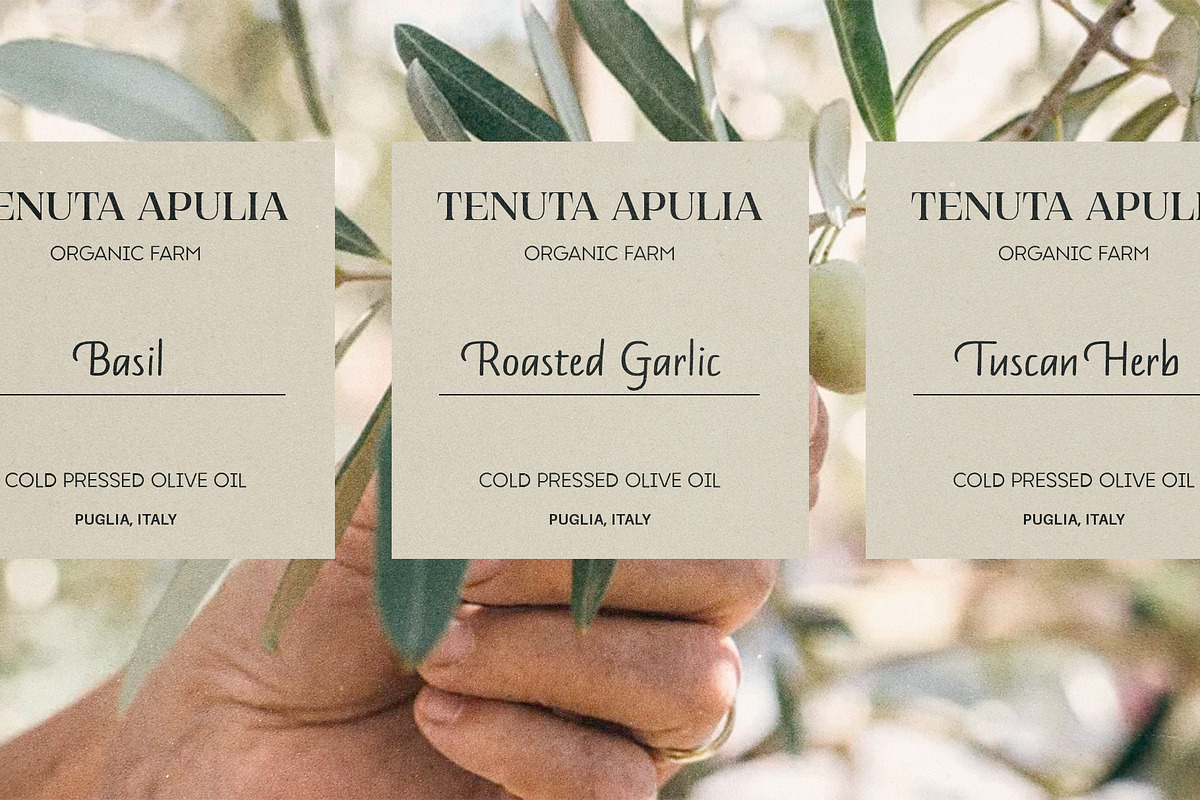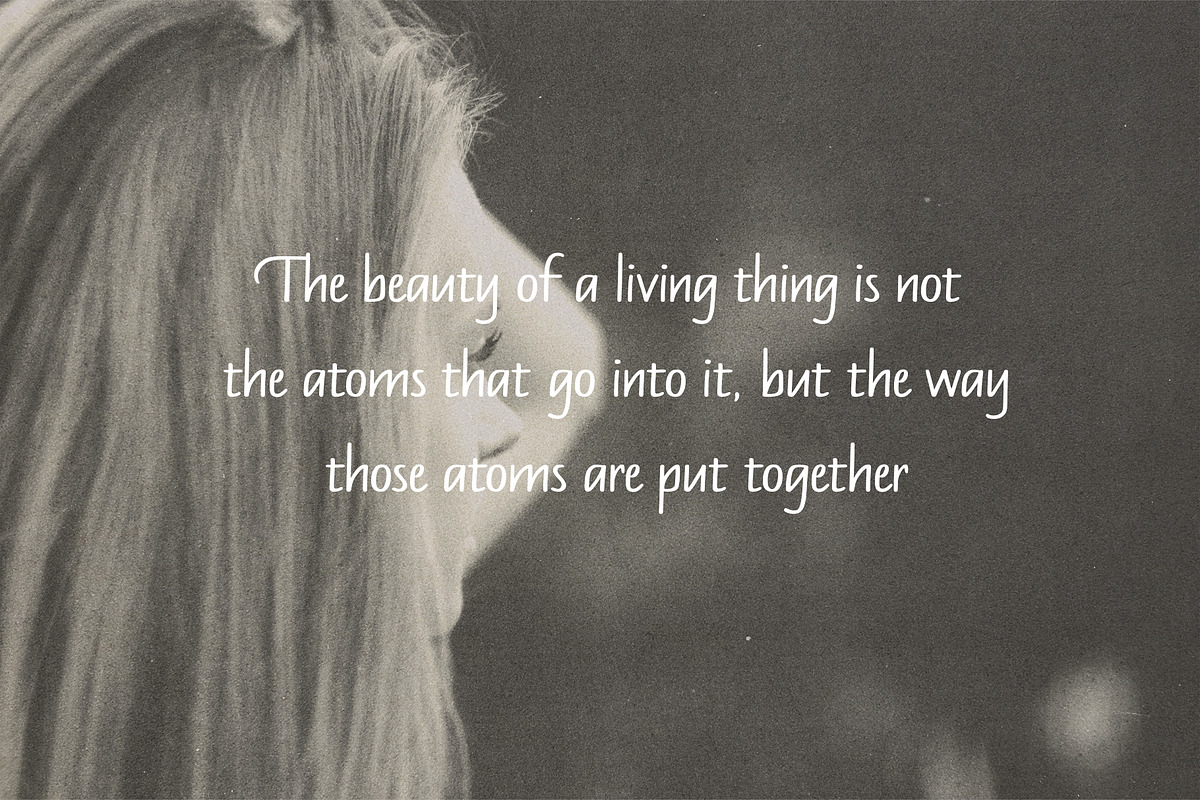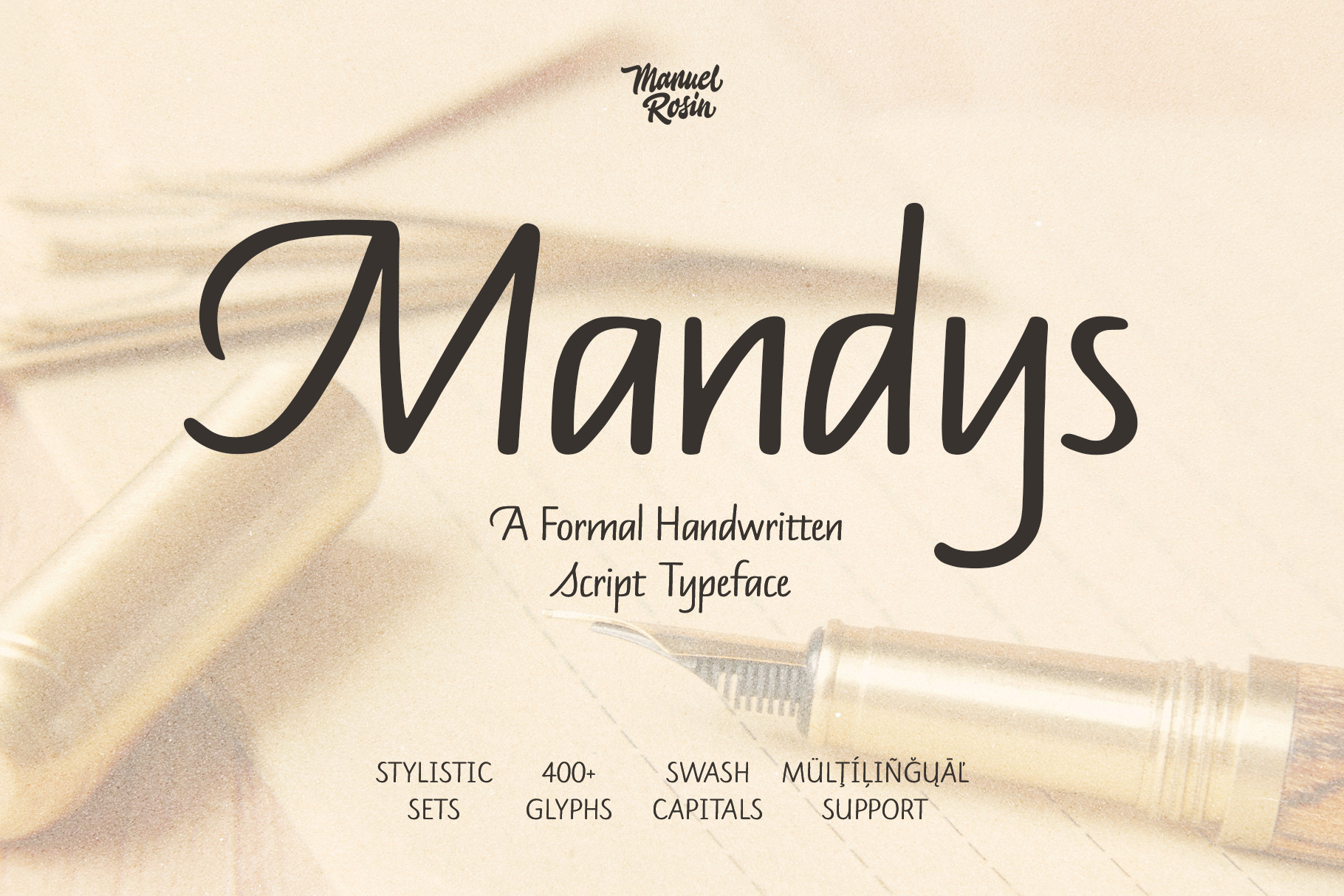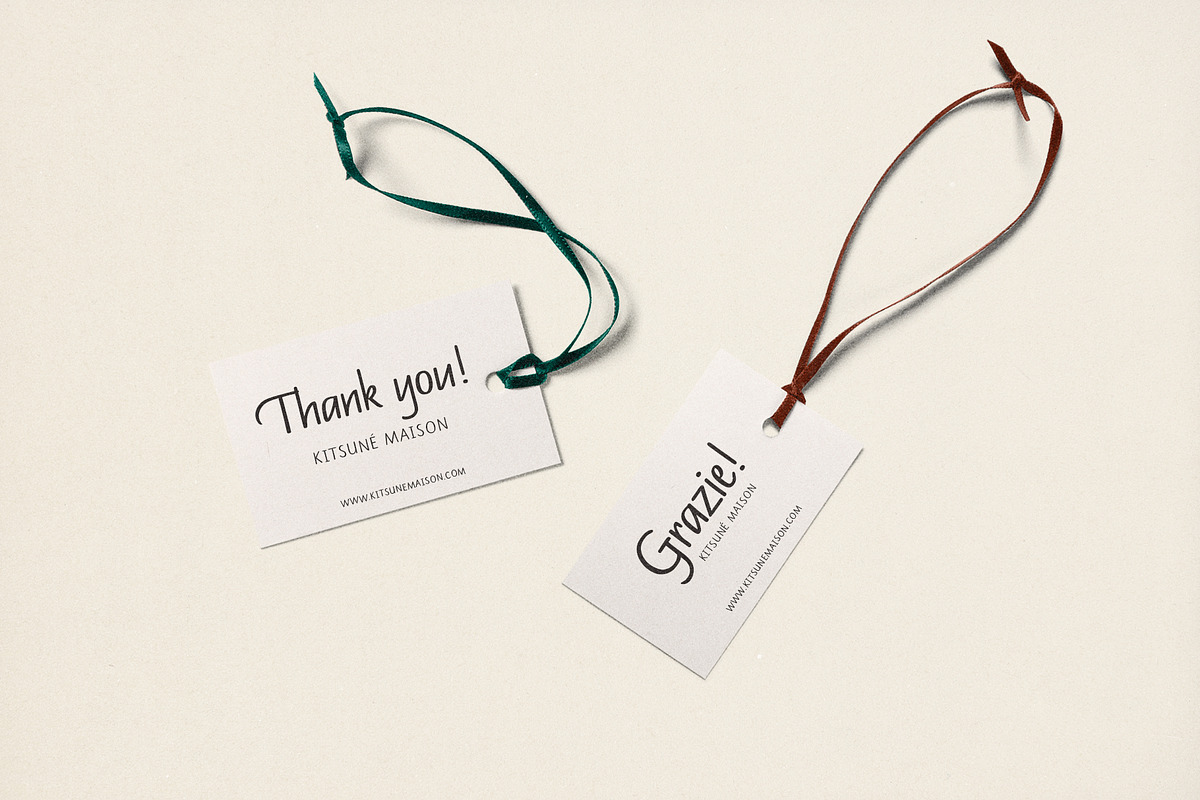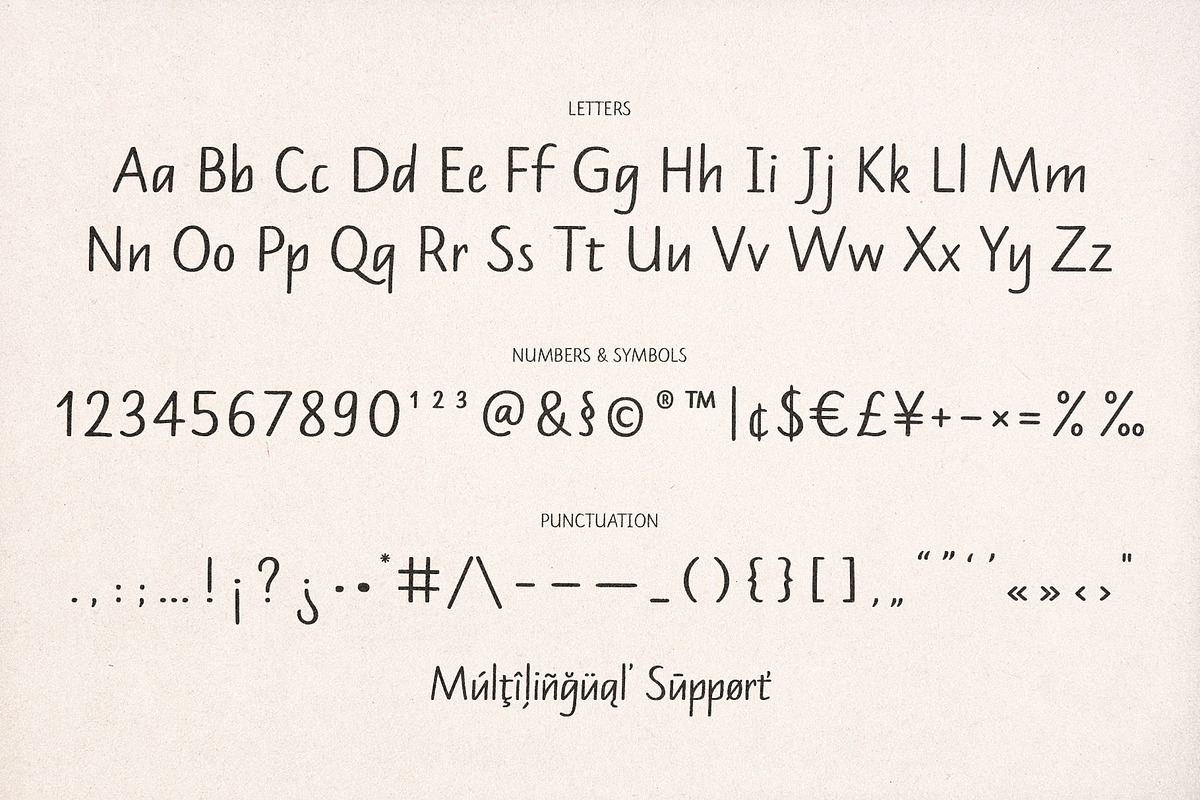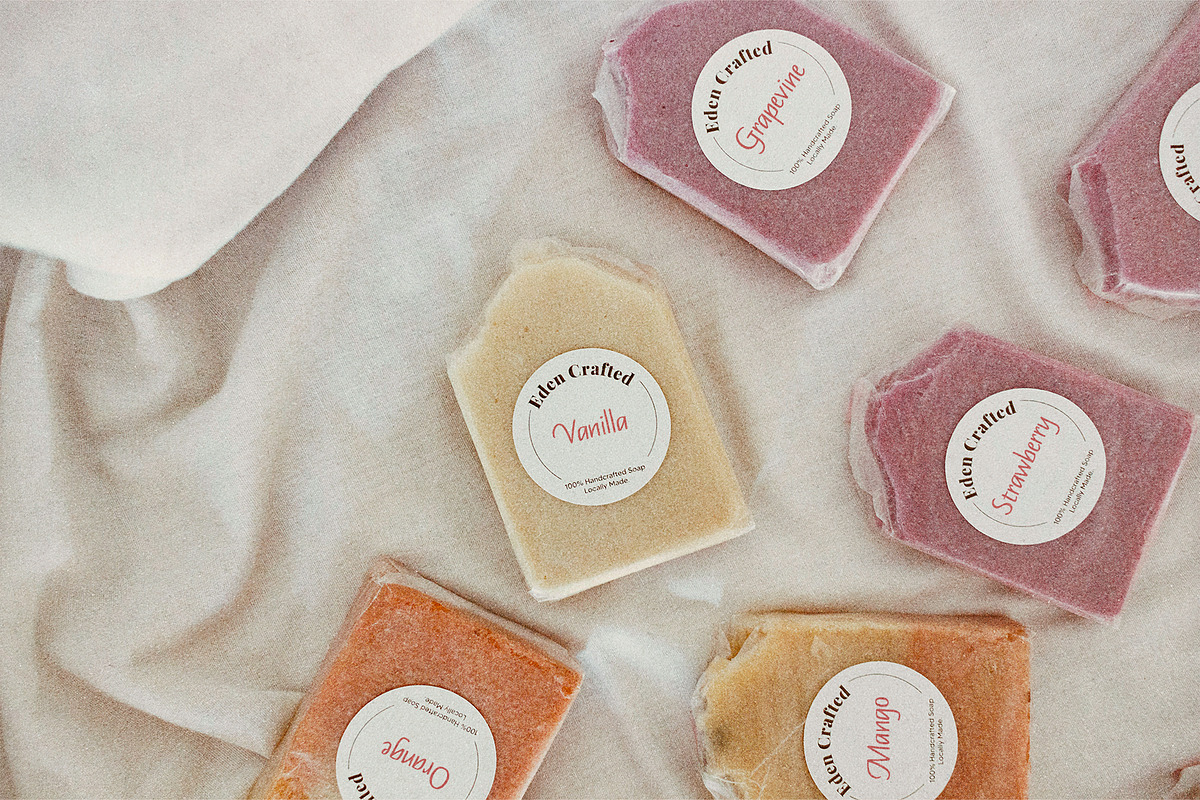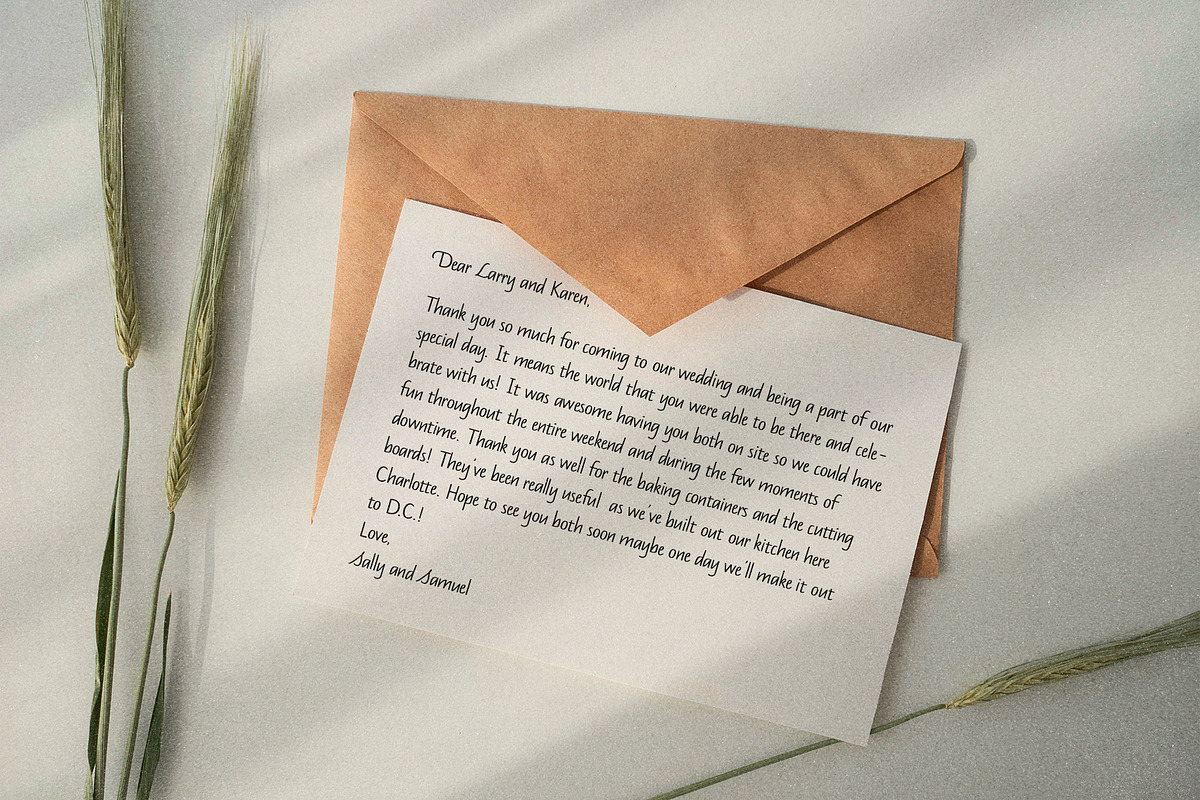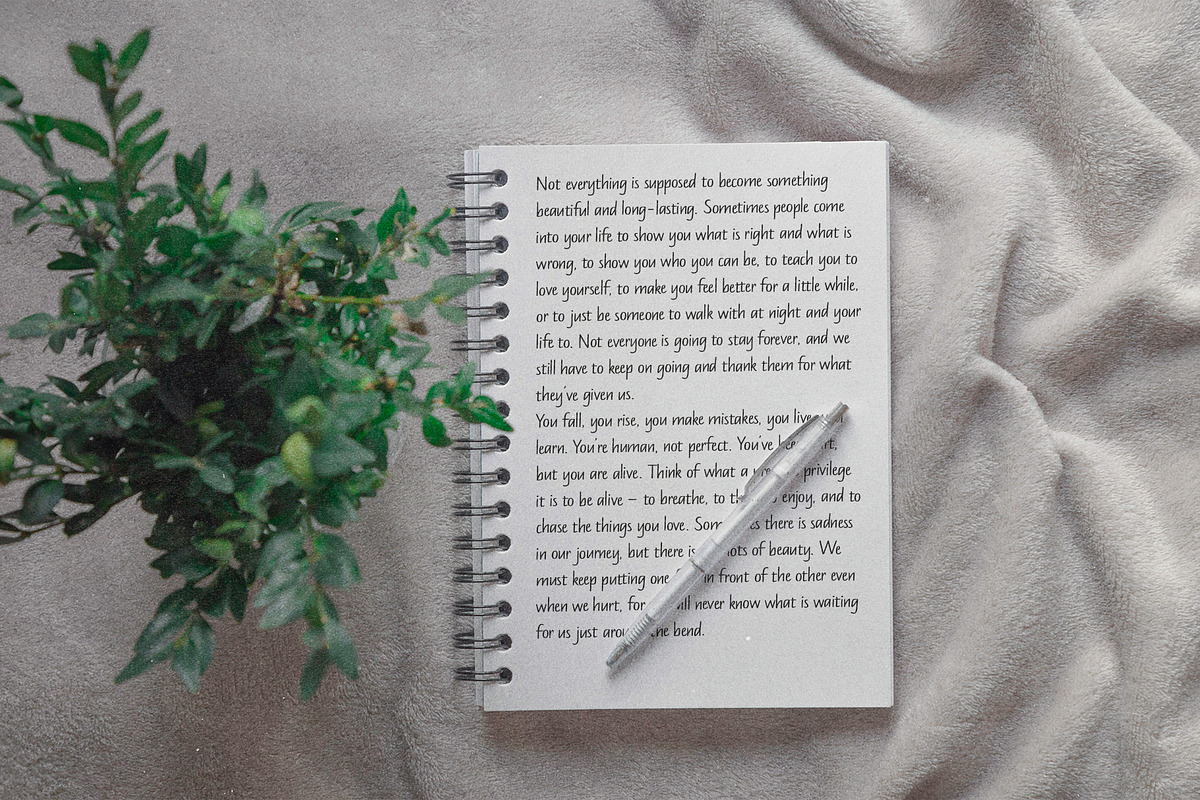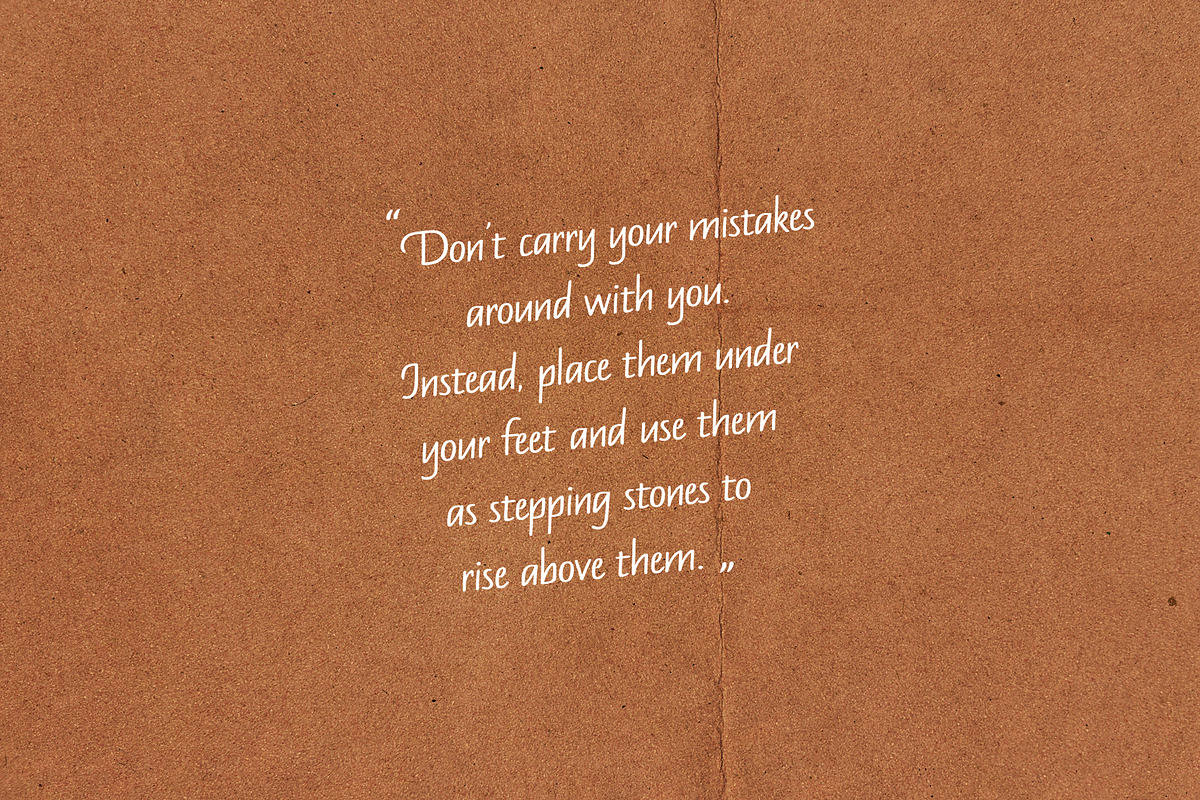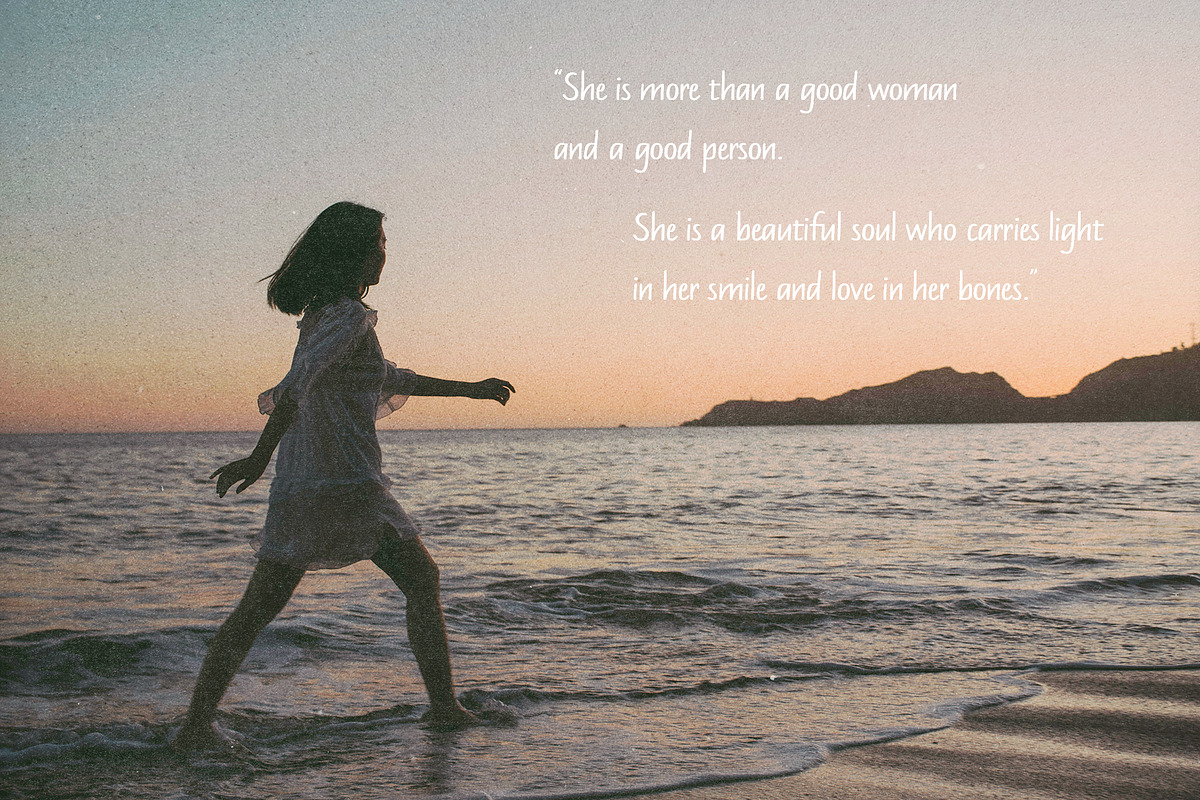
Mandys - Formal Handwritten Typeface
Mandys is a handwritten script typeface that takes inspiration from skeleton of formal handwritten Italic hand. It is completely handmade with a pointed brush pen to keep the naturalness and imperfections of handwritten notes. With some stylistic alternates and swashes capitals, Mandys is ideal for notes, labels, invitations, handwritten quotes, branding or any project that needs an authentic handwritten touch.
Mandys Typeface Features
- 400+ Glyphs
- Stylistic alternates for select charachters
- Swash Capitals
- Multilingual Support (245 languages estimated by Hyperglot database)